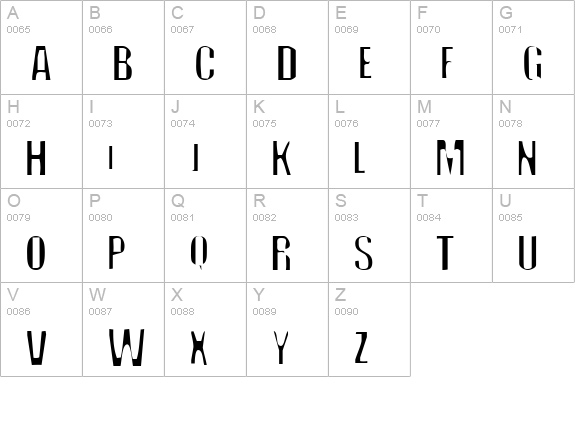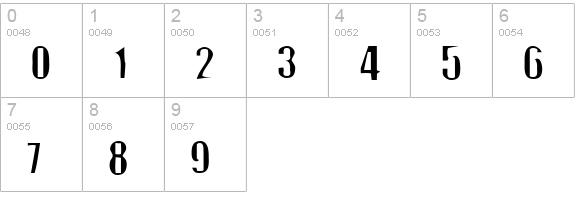
Off Normal is the standard, neutral variant in the Off typeface family \xE2\x80\x94 well suited to general body text, paragraphs, and standard typographic work.
Off Normal font is a unique and eye-catching typeface that is perfect for making your designs stand out. With its bold and modern look, this font is sure to make a statement. The Off Normal font is versatile and can be used for a variety of design projects, from posters to logos to websites. Its distinctive style will grab the attention of your audience and leave a lasting impression. What's even better is that Off Normal font is available for free download at FontsMarket.com. This means that you can easily access this stylish font and use it in your projects without any cost. Don't miss out on this fantastic opportunity to enhance your designs with the Off Normal font. Download it now and start creating stunning visuals that will wow your audience.